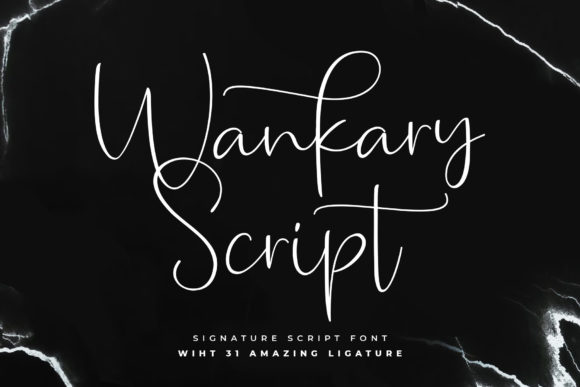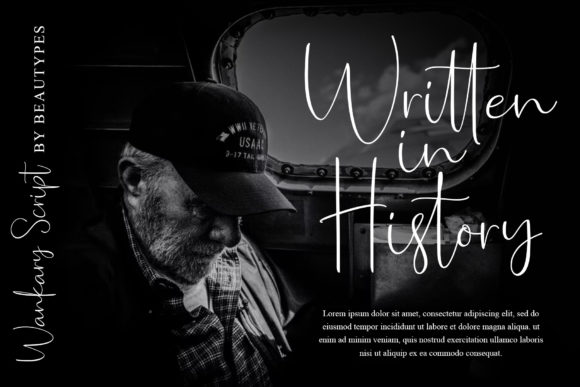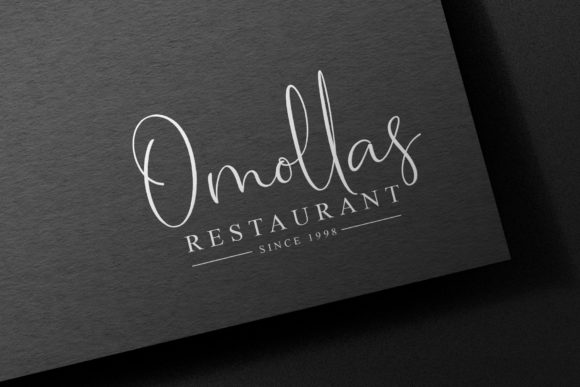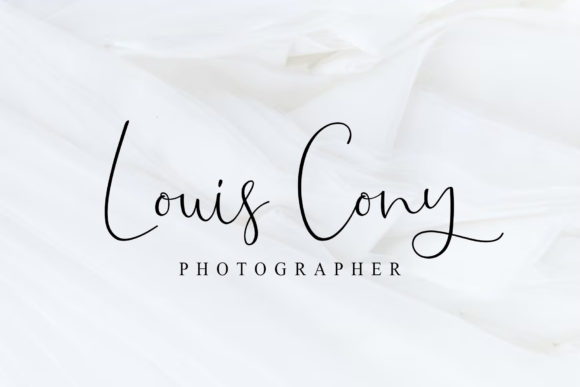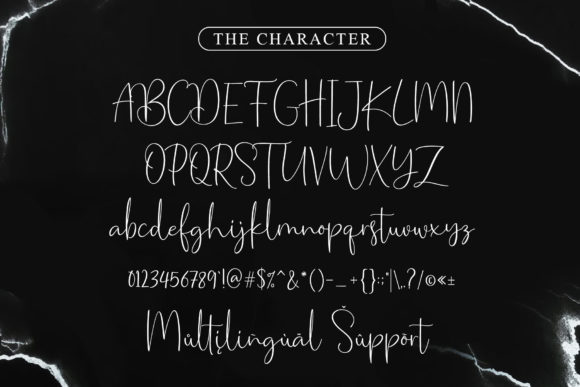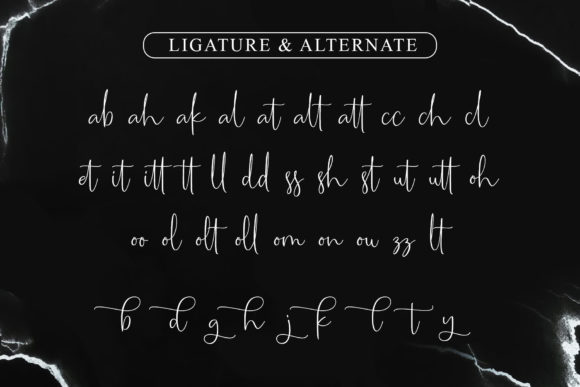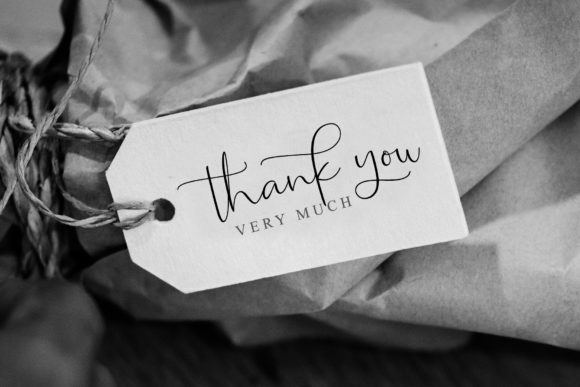
Wankary Script Font
About Wankary Script Font
Wankary Script is an organic handwritten font suitable for branding, signature, wedding invitation, promotion, product packaging, and other needs. Add this font to your favorite creative ideas, and notice how it makes them stand out!